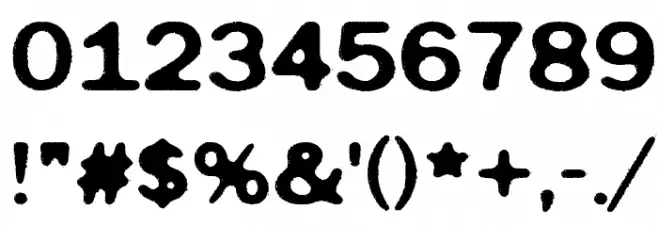
Tomorrow Comes Today Font
Tomorrow Comes Today Description
This font features a bold and rounded style with a playful and slightly retro aesthetic. The characters are thick and have a uniform stroke width, giving them a strong presence. The rounded edges soften the overall look, making it approachable and friendly. The letters are evenly spaced, ensuring readability while maintaining a cohesive appearance. The numbers and special characters follow the same design principles, providing a consistent look across all elements. This font is versatile and can be used in various design contexts where a bold and engaging typeface is desired.
A bold, rounded font with a playful, retro aesthetic from Uncategorized fonts.
- Proposed Projects: Ideal for branding, posters, children's books, and playful design projects.
- Overall Style: Retro, Playful